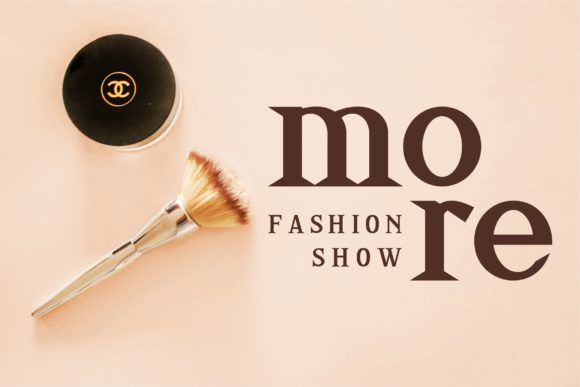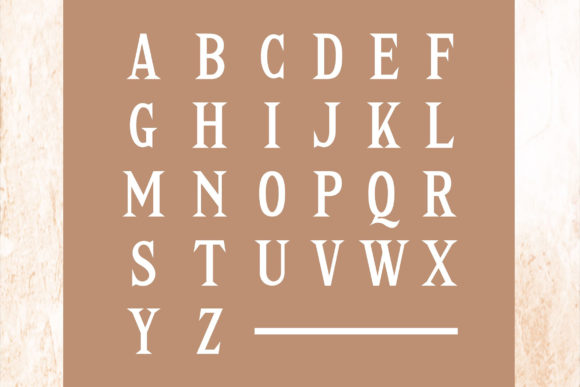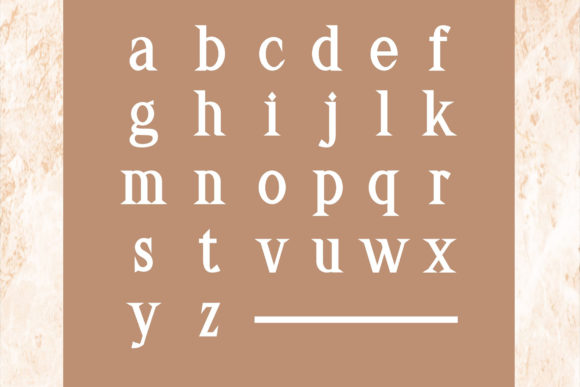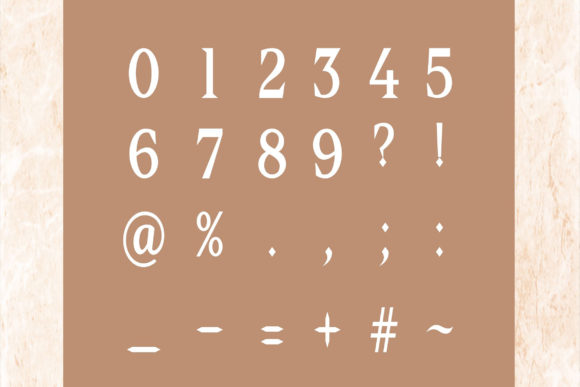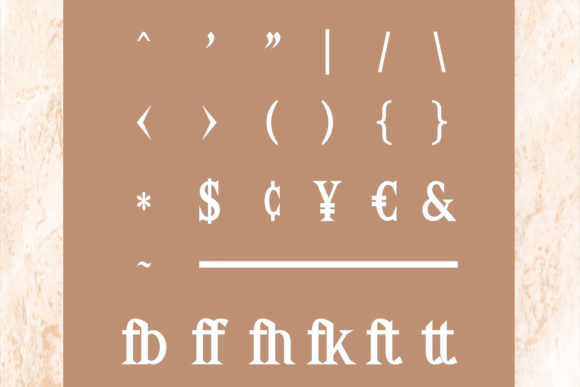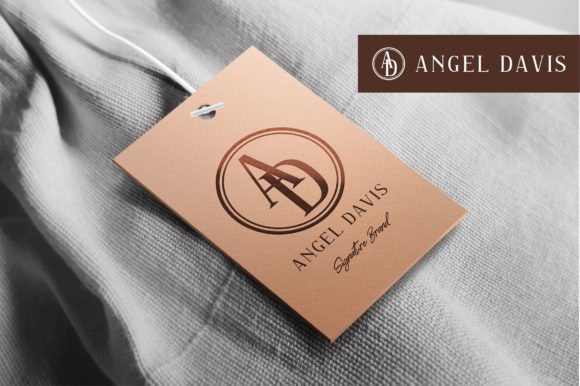
Discover the Elegance of Delia Font: A Sophisticated Serif Choice
Are you on the hunt for a font that exudes sophistication, intelligence, and a touch of authenticity? Look no further than Delia Font. This beautifully crafted serif font is making waves in the design community, and for good reason. With its unique charm and versatile appeal, Delia is quickly becoming a favorite among designers and crafters alike.
The Essence of Delia Font
Delia is more than just a font – it’s an experience. Its sophisticated and smart design makes it perfect for projects that demand a level of elegance and refinement. Whether you’re working on a luxury brand identity, a high-end product packaging, or a stylish website, Delia Font is sure to impress. Its authentic vibe gives it a distinctive edge, setting it apart from more generic fonts.
Key Features of Delia Font
- Sophisticated Design: Delia’s serif design is both classic and contemporary, making it suitable for a wide range of design applications.
- Unique Charm: The font’s authentic vibe and subtle quirks give it a personality that’s hard to find in more conventional fonts.
- Versatility: Delia Font is highly versatile, making it perfect for use in various design projects, from branding and advertising to web design and publishing.
- Readability: Despite its elegant design, Delia remains highly readable, even at smaller font sizes.
Inspiration from Delia’s Unique Charm
One of the standout features of Delia Font is its unique charm. This isn’t just a font that looks good – it’s a font that tells a story. Its authentic vibe is reminiscent of classic typography, yet it feels fresh and modern. When you’re working with Delia, you’ll find that it inspires creativity and adds a touch of personality to your designs.
Using Delia Font in Your Designs
So, how can you make the most of Delia Font in your designs? Here are a few ideas to get you started:
- Branding and Identity: Use Delia Font to create a sophisticated brand identity that stands out from the crowd.
- Web Design: Add a touch of elegance to your website with Delia Font, perfect for headings, titles, and other key elements.
- Print Design: Delia Font is perfect for print designs, including brochures, magazines, and product packaging.
- Packaging: Use Delia Font to create eye-catching packaging that reflects your brand’s personality.
Why Designers and Crafters Love Delia Font
Delia Font has quickly become a favorite among designers and crafters, and it’s easy to see why. Here are just a few reasons why:
- Ease of Use: Delia Font is incredibly easy to use, even for those who are new to design.
- High-Quality Design: The font is beautifully crafted, with a level of detail and attention that sets it apart.
- Flexibility: Delia Font can be used in a wide range of design applications, making it a versatile addition to any design toolkit.
In conclusion, Delia Font is a sophisticated and smart serif font that offers a unique blend of elegance, authenticity, and versatility. Whether you’re a designer, crafter, or simply someone who appreciates beautiful typography, Delia Font is definitely worth checking out. With its inspiring charm and wide range of uses, Delia is sure to become a staple in your design toolkit.